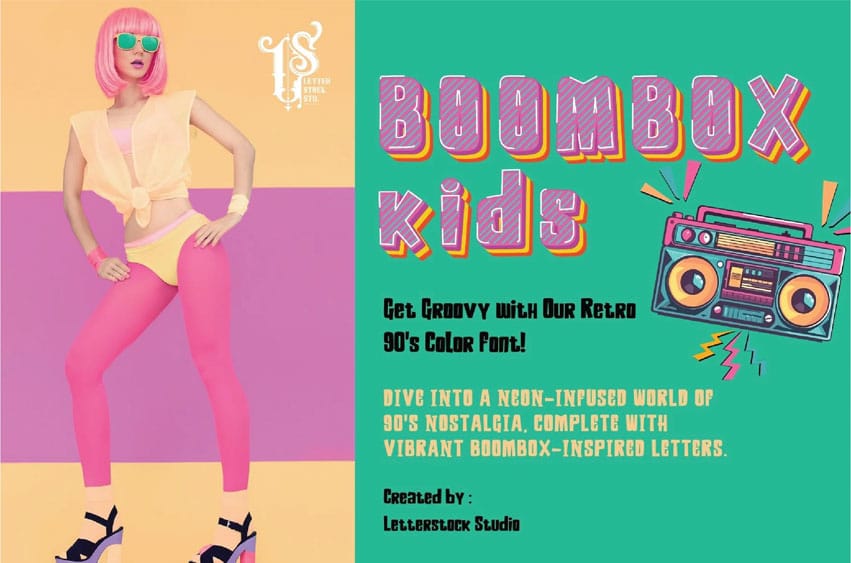
Boombox Kids Font Step back in time to the neon-infused era of the 90’s with “Boombox Kids,” an electrifying SVG color font designed to bring the essence of this vibrant decade to your designs. Perfect for crafting eye-popping retro 90’s posters, inviting invitations, and captivating social media posts, this font channels the spirit of colorful 90’s boomboxes with every character.
Neon Nostalgia: “Boombox Kids” effortlessly captures the vivacious spirit of the 90’s, infusing your designs with neon-infused nostalgia.
Colorful Vibes: With its SVG color capabilities, this font allows you to unleash a rainbow of hues, adding a splash of excitement to your creations.
Transport your designs to the iconic 90’s era with a font that’s bursting with color and energy. Create posters that pop, invitations that transport, and social media posts that dazzle. It’s time to turn up the retro and embrace the vibrancy of the 90’s.